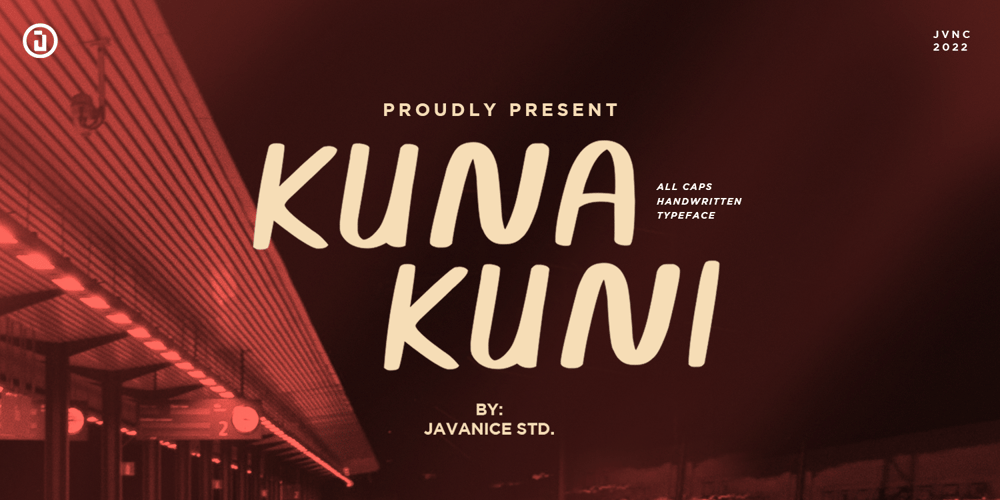
Kuna Kuni
Kuna Kuni font
Kuna Kuni Font Family was designed by Revsani Hisyam Wardhana and published by Javanice Studio. Kuna Kuni contains 1 styles and family package options. Introducing Kuna Kuniby Javanice StudioKuna Kuni is A All Caps Handwritten Typeface FontKuna Kuni is perfect for branding project, apparel, labels, magazines, books, greeting / wedding cards, packaging, fashion, make up, stationery, and any type of advertising purpose or just used to express words above the background.This font includes OTF&TTF&Woff, Kuna Kuni also multilingual support.Enjoy the font, feel free to comment or feedback, send me PM or email.